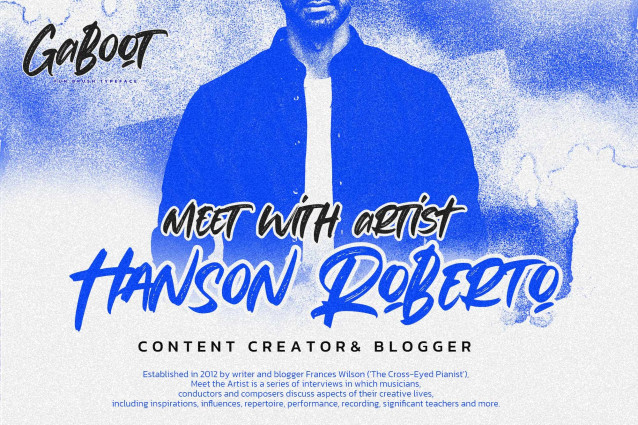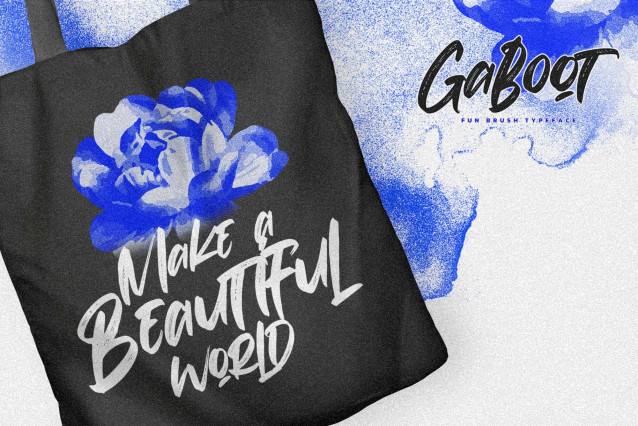
Gaboots Font
Gaboots Font is a lively and expressive brush typeface crafted with bold, sweeping strokes and a playful handwritten spirit. Its dynamic curves and textured brush details create a sense of movement, making Gaboot feel spontaneous, artistic, and full of character.
With its modern brush aesthetic and natural ink flow, Gaboot adds a fresh and creative touch to any design—perfect for projects that need personality, excitement, and a strong visual rhythm.